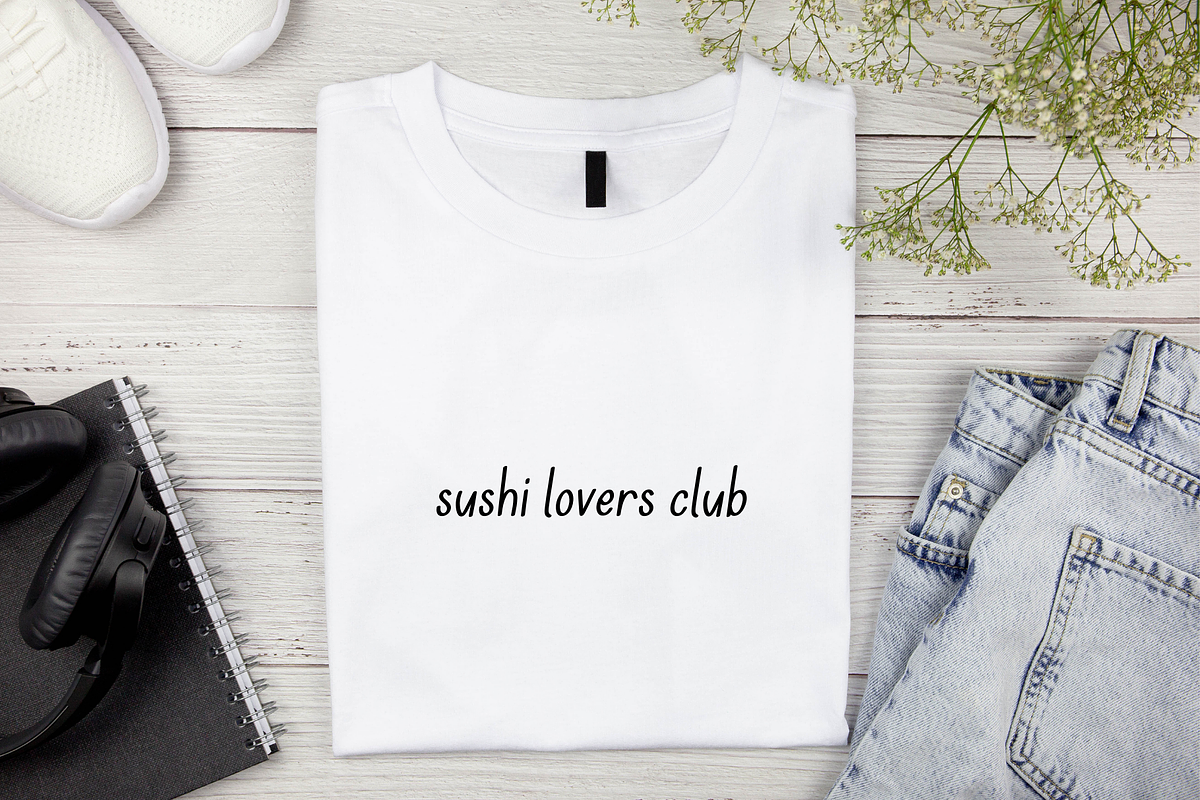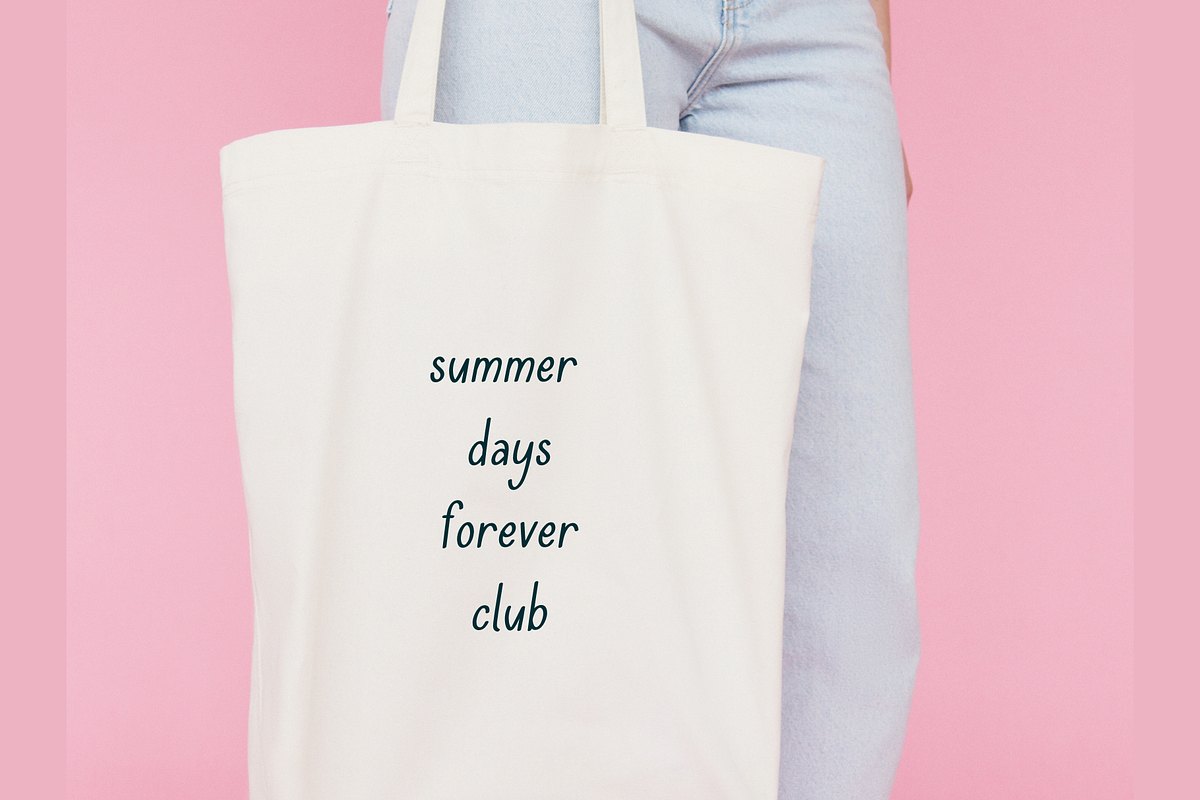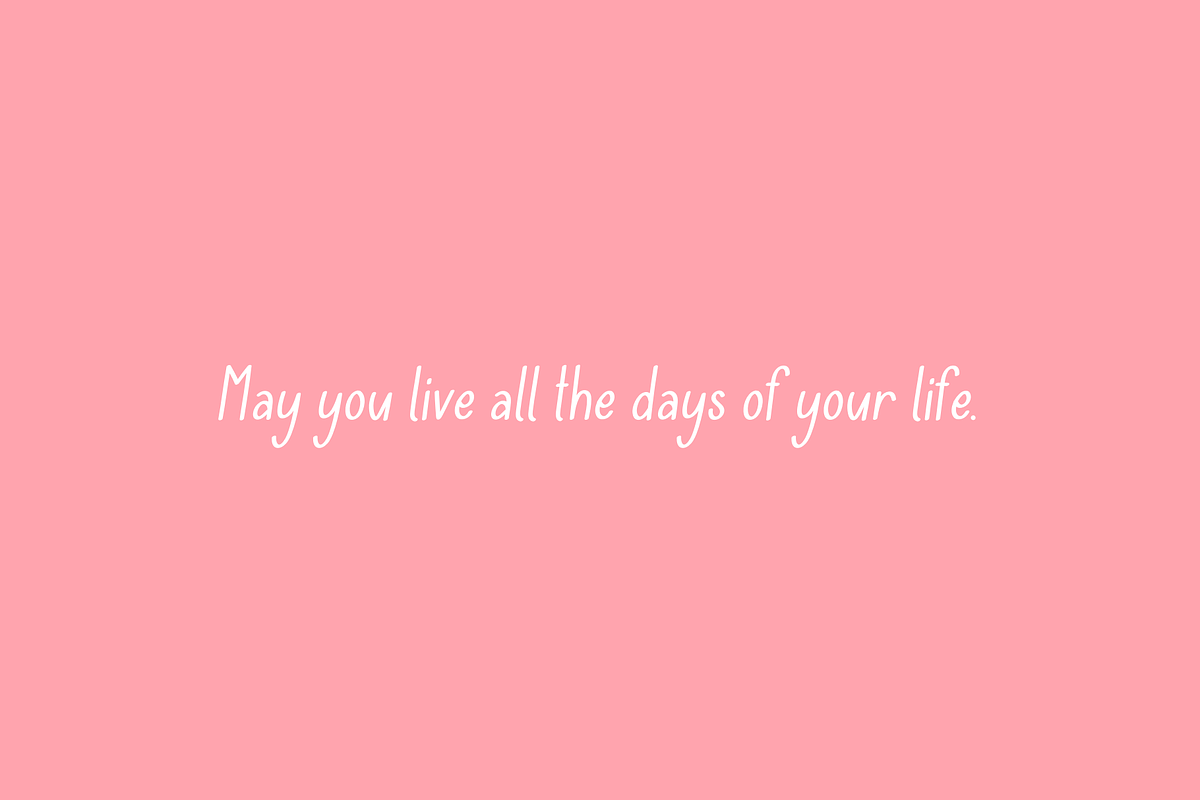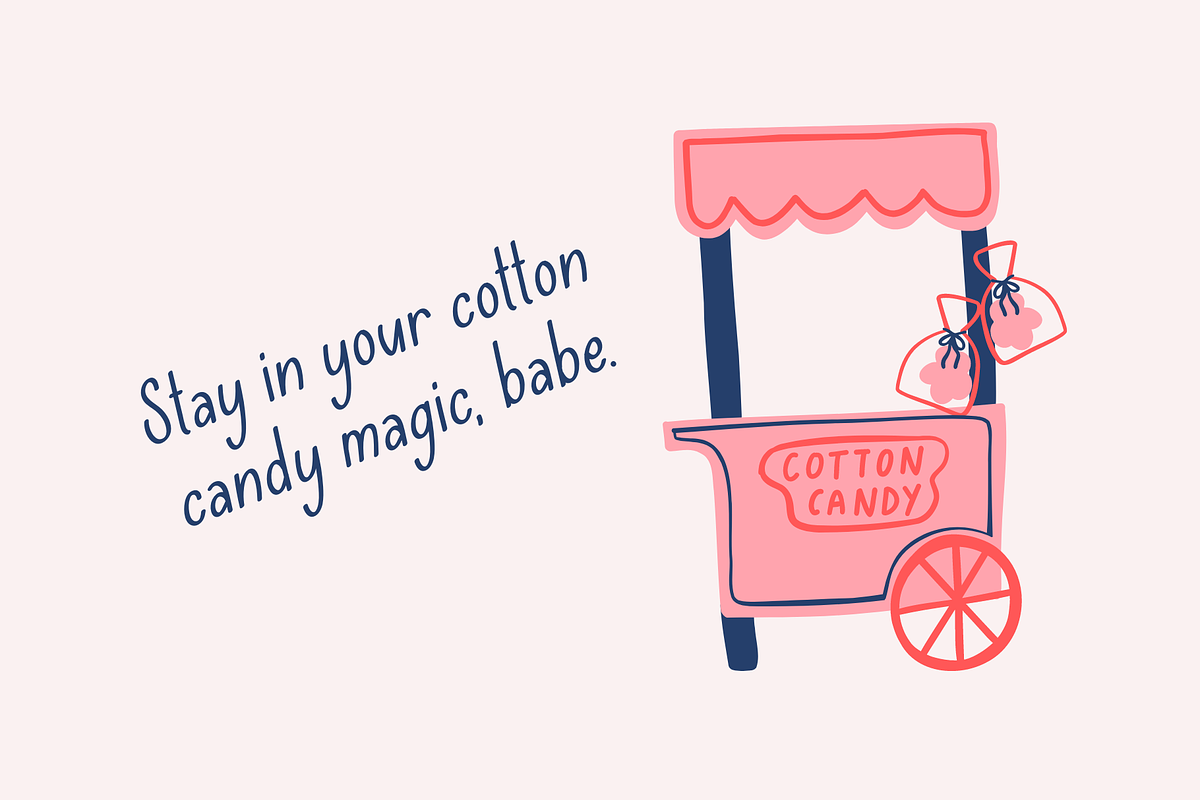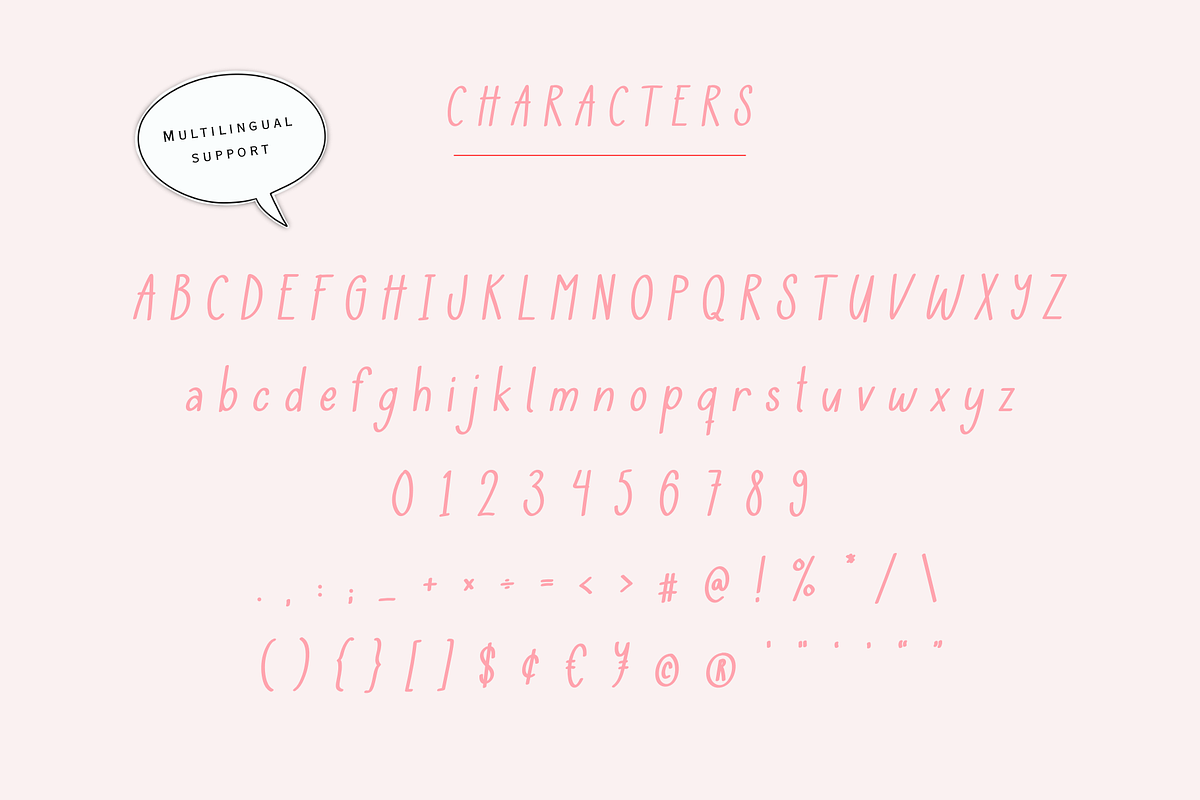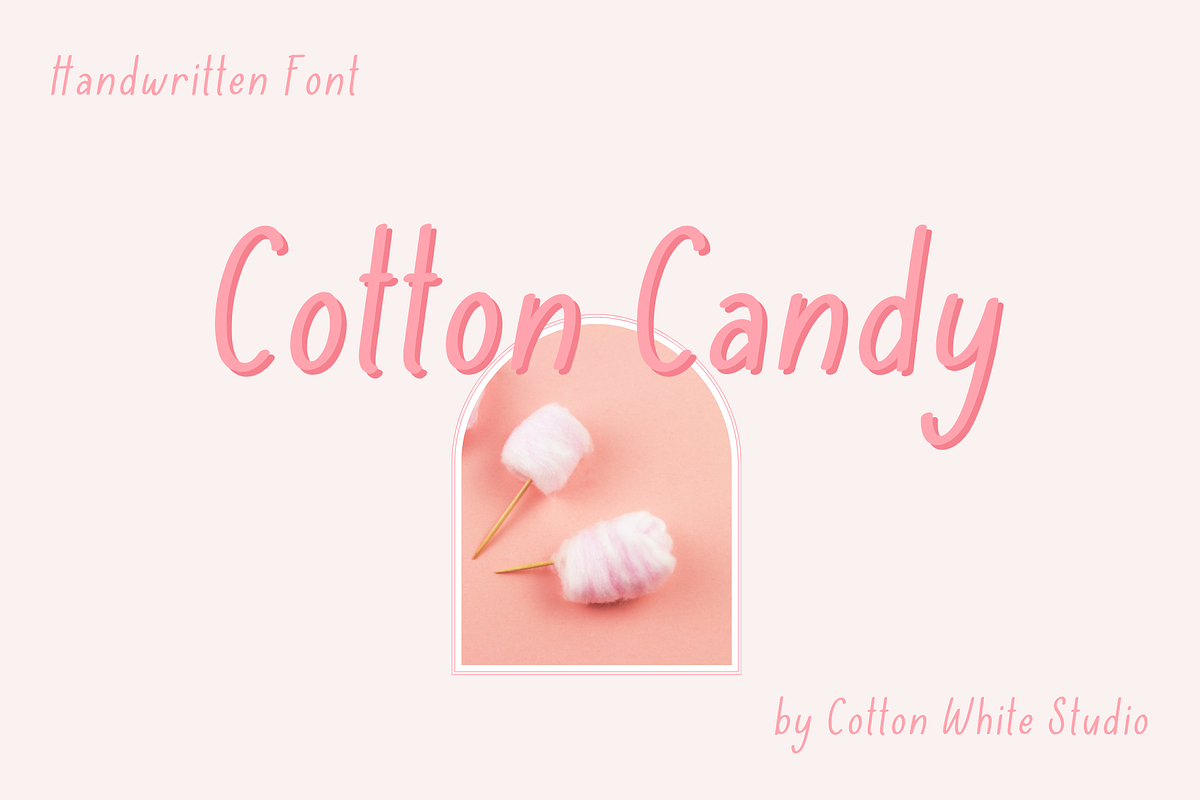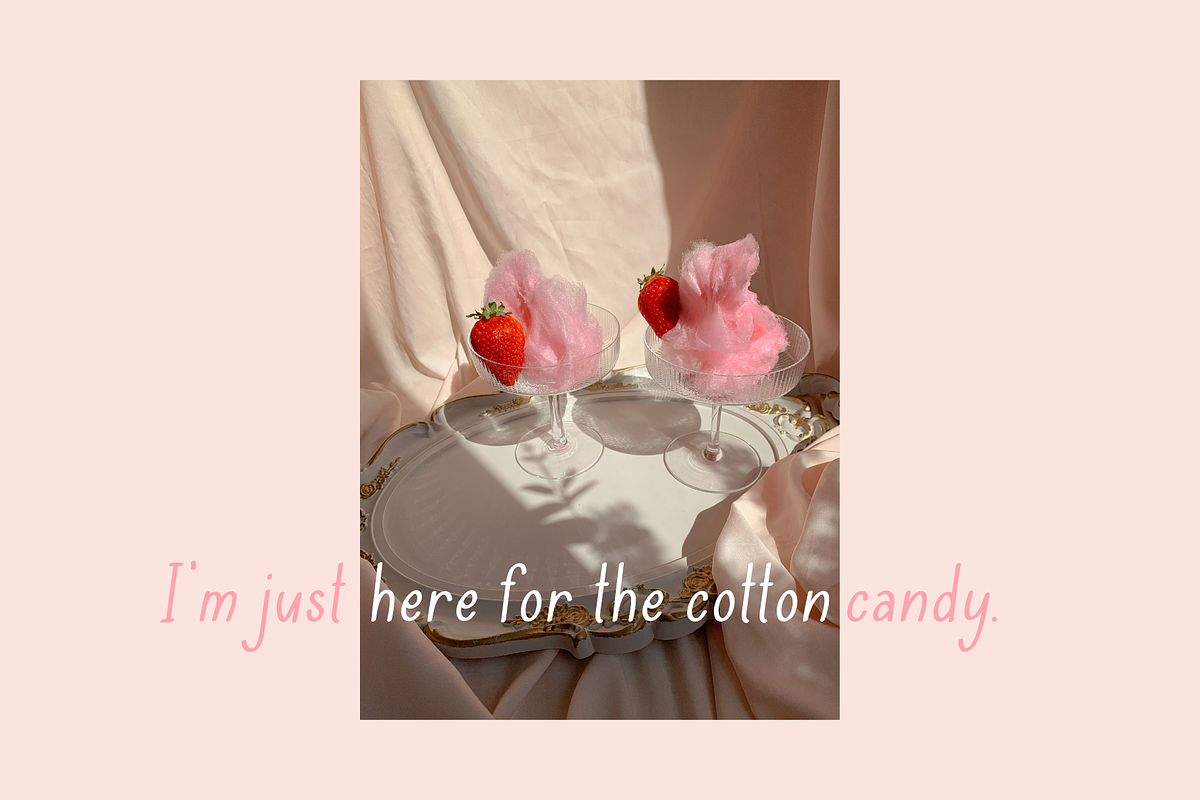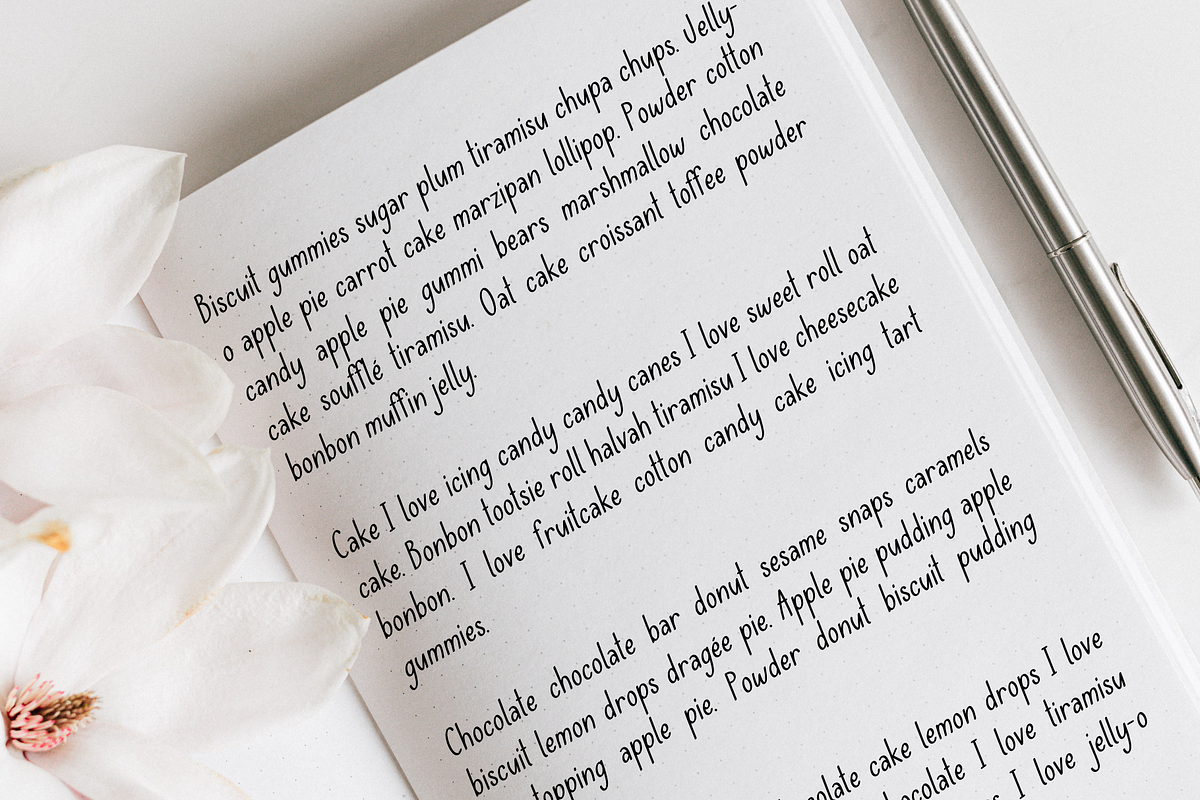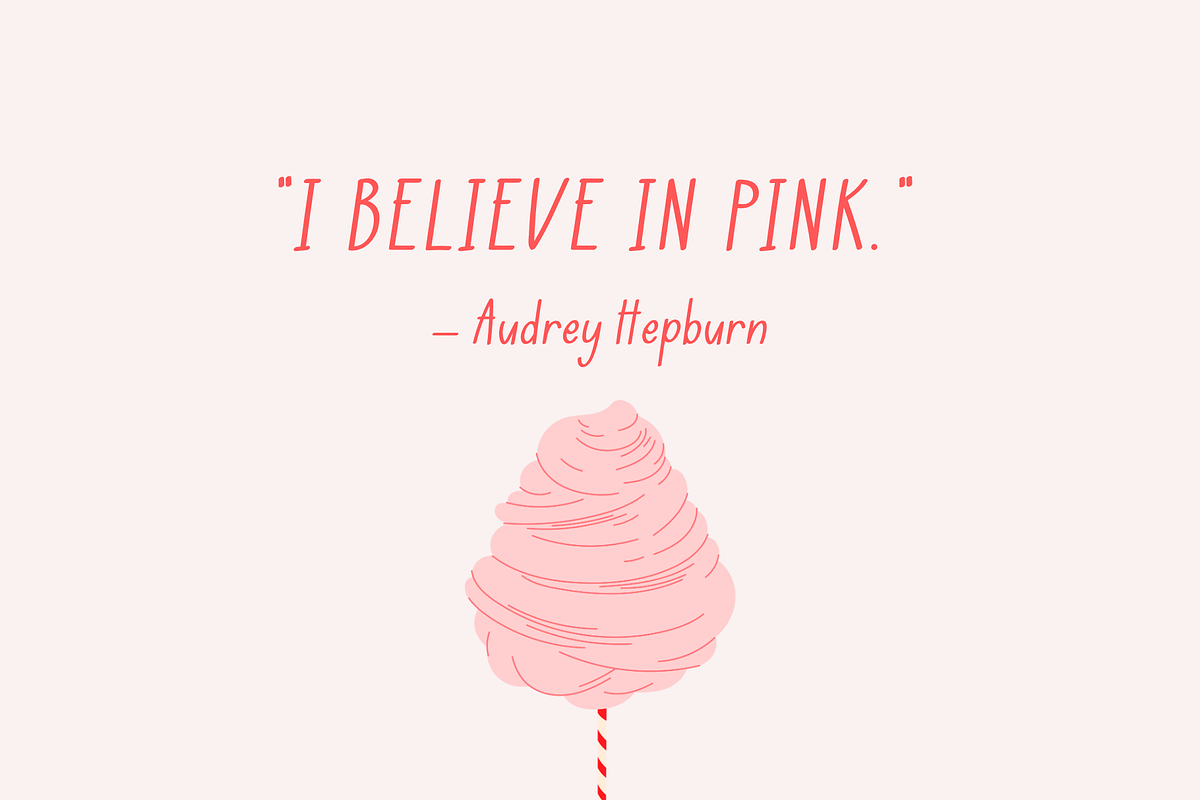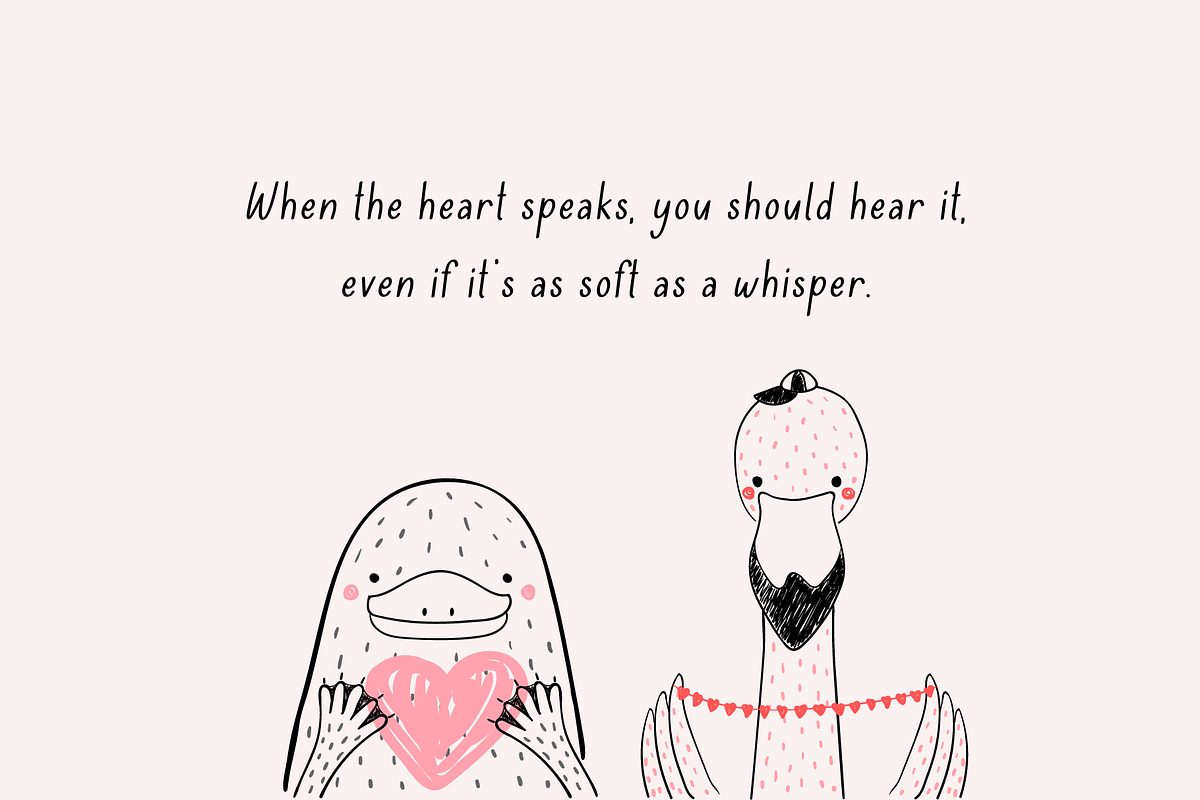
Cotton Candy
You can use this font to jazz up your digital planner, journal, invitations, note-taking, or anything that requires a handwriting look. Or use it with your projects on in Cricut, Adobe Illustrator, Photoshop, Canva Pro, Silhouette, Procreate, Affinity, Notability, GoodNotes, and more!